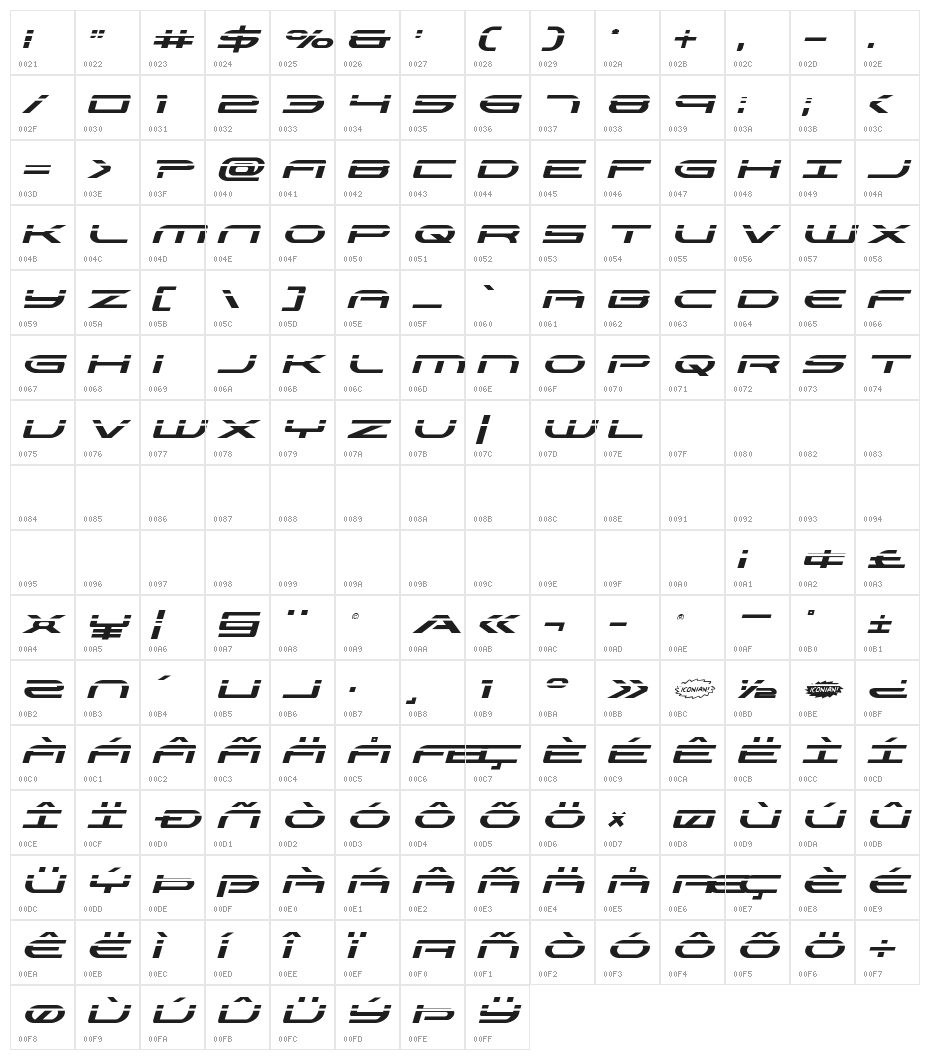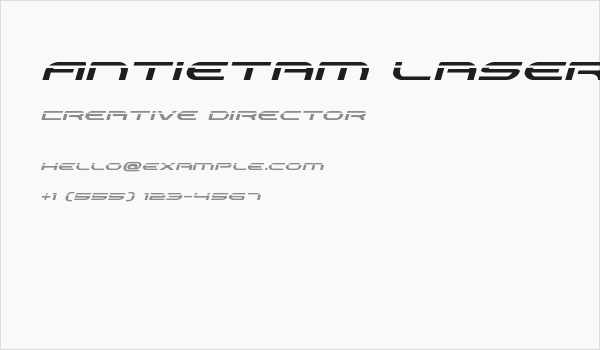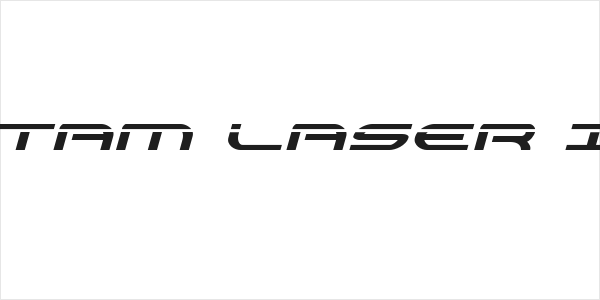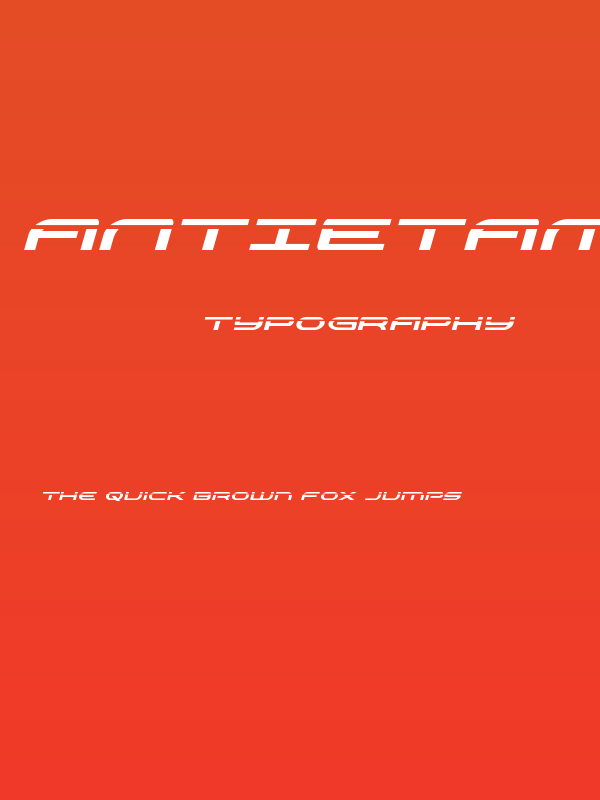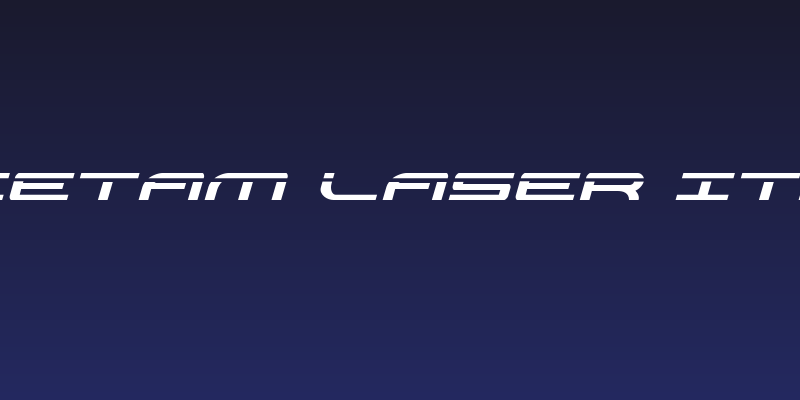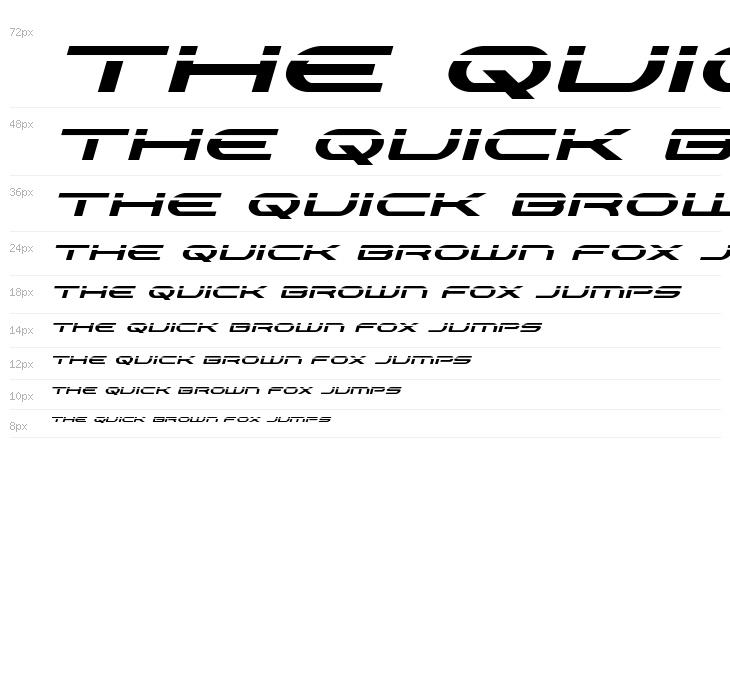
Antietam Laser Italic Font
Antietam Laser Italic Description
This font features a futuristic and sleek design with a distinct italic slant, giving it a dynamic and forward-moving appearance. The characters are constructed with sharp, angular lines and a geometric structure, creating a sense of speed and modernity. The uppercase and lowercase letters maintain a consistent style, with the lowercase being slightly smaller and more compact. Numbers and special characters follow the same design principles, ensuring uniformity across all glyphs. The font's unique style makes it stand out, ideal for projects that require a modern and cutting-edge look.